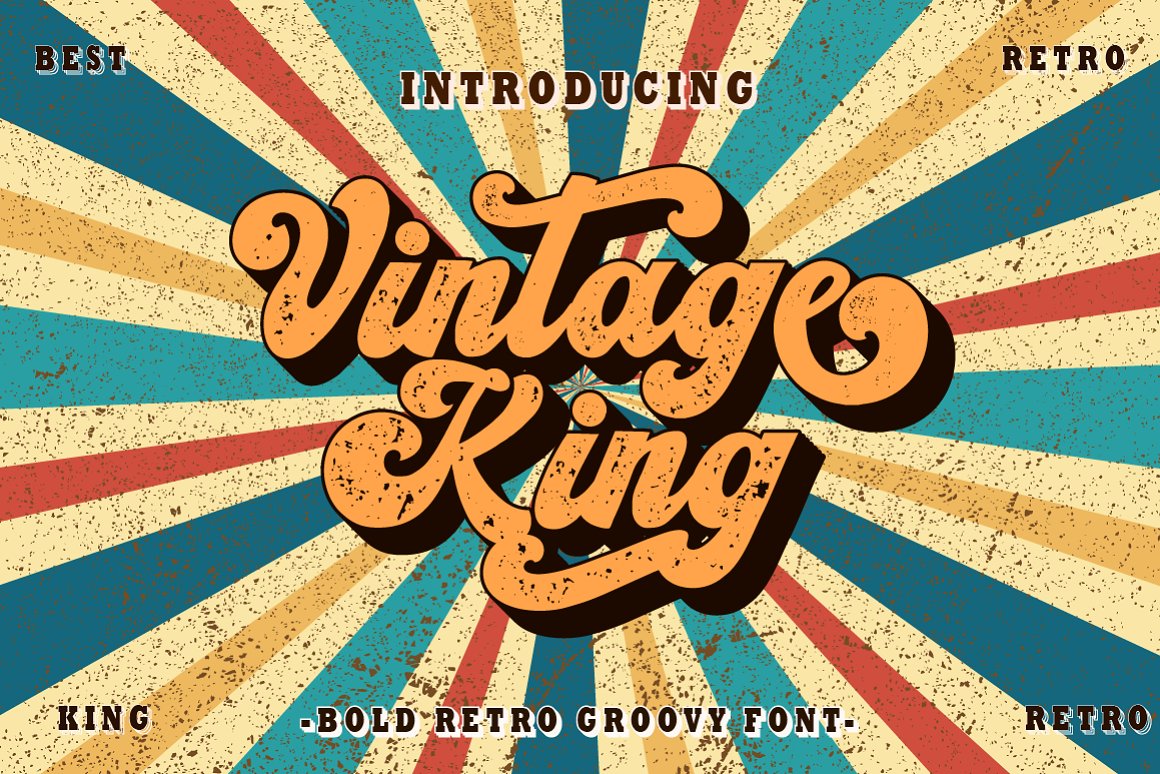
5 Free Unique Vintage Fonts for Logo Design: How Retro Typography Shapes Brand Identity
Vintage aesthetics have never truly disappeared; they have simply evolved and resurfaced in different forms across generations. From retro diner signage to classic book covers and heritage packaging, vintage typography carries a spirit of nostalgia and craftsmanship that modern digital design often lacks. In branding, especially logo creation, this nostalgic quality can be a strategic asset. It introduces character, emotional resonance, and timelessness, qualities that many contemporary brands struggle to achieve in a saturated marketplace.
As more businesses lean into storytelling-driven branding, vintage-style fonts have become an accessible way to demonstrate heritage, authenticity, and craftsmanship without rewriting the brand’s entire narrative. This article explores five free vintage fonts that can be used for logo design and examines why they continue to hold such strong appeal in modern branding.
Why Vintage Fonts Matter for Logo Design
A logo is often the first point of contact between a brand and its audience. It is expected to carry not just visual clarity but emotional meaning. Vintage fonts excel at delivering that emotional layer because they carry historical and cultural references embedded in their letterforms. A serif with slab edges or ornate flourishes can evoke eras of quality manufacturing, artisan shops, or classic branding long before digital minimalism took over.
Three strategic advantages explain their relevance today:
1. Emotional Connection Through Nostalgia
Consumer studies show that nostalgia increases brand affinity and positive perception. Vintage typography taps into collective memory whether the reference is 1950s diners, Victorian calligraphy, old western signage, or mid-century advertising.
2. Perceived Craftsmanship and Authenticity
Vintage aesthetics suggest the brand values detail and tradition. This matters especially in industries where trust and craft are important, such as coffee, tailoring, spirits, grooming, artisanal goods, and culinary brands.
3. Differentiation in a Minimalist Market
Modern typography trends often lean toward simplified sans-serifs. Against a backdrop of minimal sameness, vintage fonts offer differentiation through personality and historical charm.
This combination of emotional resonance and market differentiation explains why even digital-first companies now embrace retro identity elements.
Recommended Free Vintage Fonts for Logo Design
Below are five free vintage fonts highlighted in the original article. Each brings a unique visual flavor suitable for different brand categories and creative contexts.
1. Vintage King — Nostalgia with Character
A classic vintage typeface that leans heavily into retro signage aesthetics. Vintage King features dramatic curves, decorative terminals, and strong serifs that evoke signage from the mid-20th century. Its letterforms make it an ideal match for brands seeking a nostalgic and story-driven identity.
Best used for:
• heritage cafés
• barbershops
• craft breweries
• retro clothing labels
• diner and culinary branding
Its nostalgic tone makes it powerful for logos that want to feel lived-in rather than manufactured.
2. Vintage Binary — Premium Retro Elegance
Vintage Binary takes a more refined approach to the vintage theme. It features more controlled proportions and elegant serif detailing, creating an image that is premium rather than purely nostalgic. Its aesthetic leans into European heritage rather than American retro signage.
Best used for:
• luxury goods
• small-batch food products
• coffee and wine labels
• boutique fashion brands
This is the type of font that elevates the product’s perceived value without making it feel pretentious.
3. Firanza Display — Bold Serif for Heritage Branding
Firanza Display sits in the category of bold display serifs that nod toward mid-century editorial typography. Its tall x-height and pronounced serifs create strong visibility even at small sizes, making it an excellent choice for logo applications.